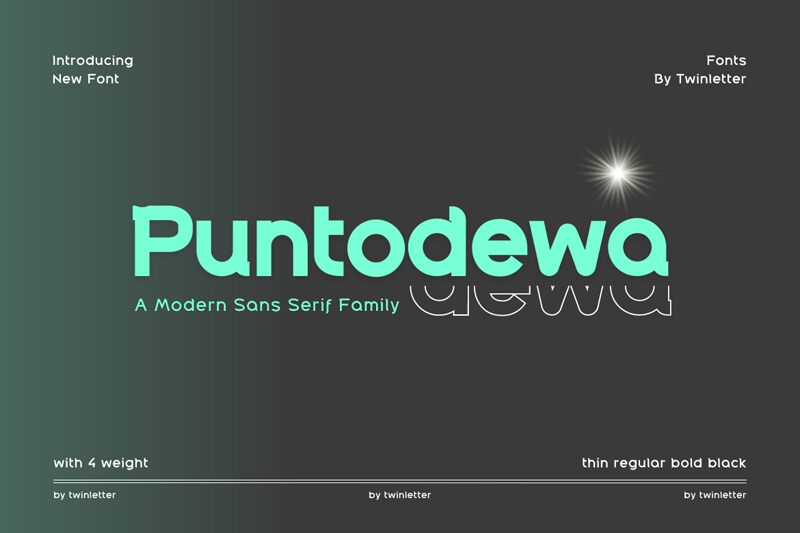
Puntodewa Thin font by Twinletter is a sleek and simple typeface with remarkable balance and legibility. The modern sans serif influences are visible from top to bottom alongside the clean cuts achieved in each letter. This light font’s minimal structure accounts for excellent readability which makes Puntodewa Thin suitable for various contemporary design applications.
Use Puntodewa Thin for branding projects such as logo designs, titles, business cards, packaging labels, or digital and printed advertising. Pair it with any format of online content related to websites, blogs, mobile apps UI/UX, social media posts/covers/profile images etc. Office stationary is another possibility made available thanks to this unique free font!